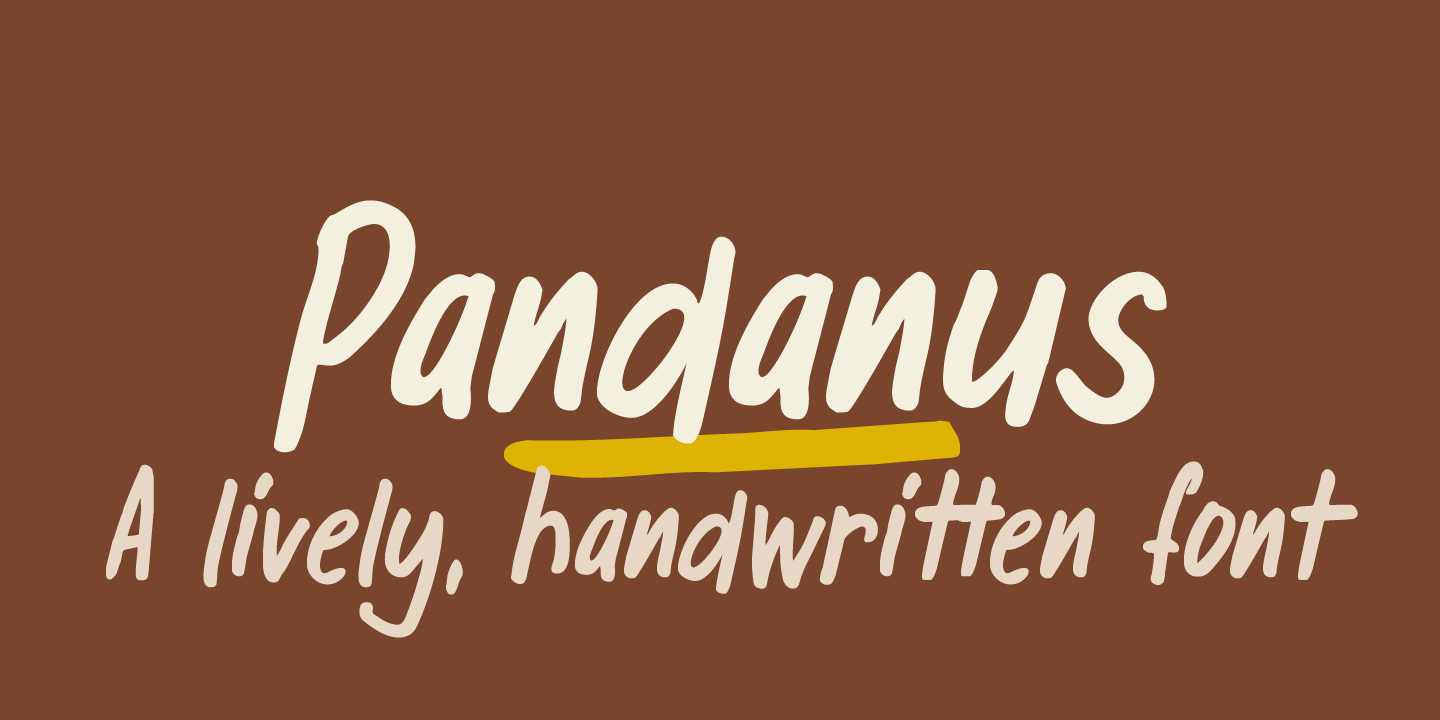
Pandanus Font is perfect for tropical resort branding, Pacific island tourism, exotic botanical gardens, sustainable architecture projects, natural fiber crafts, coastal conservation organizations, eco-friendly packaging, Polynesian cultural centers, and any project requiring typography with tropical resilience and natural coastal sophistication.
What makes Pandanus Font exciting is its coastal resilience that captures the adaptive strength and natural beauty of the pandanus tree with letterforms that embody the graceful endurance and tropical elegance of this remarkable coastal plant that thrives in harsh seaside environments. This distinctive typeface reflects the harmonious balance between rugged durability and tropical beauty with organic curves that mirror the distinctive spiral leaf arrangements and the natural architecture of pandanus groves swaying in ocean breezes. The font's tropical character and natural sophistication make it perfect for brands celebrating environmental adaptation, coastal sustainability, and the enduring beauty of plants that flourish in challenging natural conditions.
The Pandanus Font family includes regular and bold weights, featuring complete uppercase and lowercase alphabets, numerals, punctuation marks, and tropical botanical elements. The font maintains consistent coastal elegance throughout all weights while ensuring excellent readability for both resilient headlines and flowing text applications in tropical and environmental contexts.
Whether you're designing for tropical conservation groups, creating coastal tourism materials, or developing sustainable branding with tropical botanical aesthetics, Pandanus Font Free Download brings unmatched natural resilience and tropical sophistication to your projects. This remarkable typeface transforms ordinary text into expressions of coastal adaptation that celebrate the strength and beauty of tropical plants that thrive in challenging environments. The font's resilient character makes it ideal for environmental organizations, tropical resorts, and sustainable lifestyle brands. Download this exceptional font today and bring the adaptive elegance of tropical coastal botany to your design projects with authentic natural sophistication and pandanus-inspired resilience.